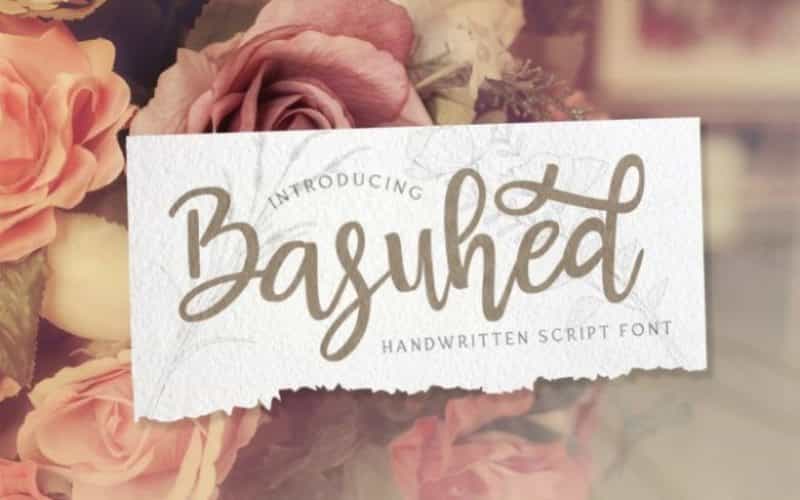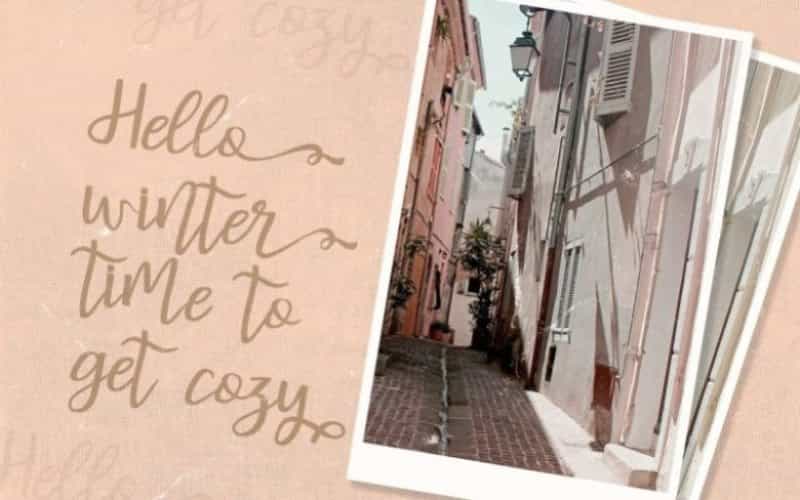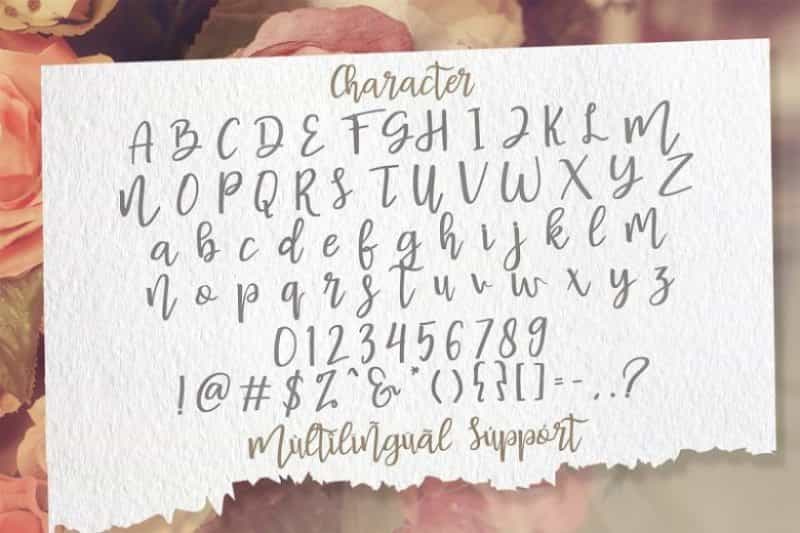
Basuhed script font that is handwritten in calligraphy style. The Basuhed font is made using digital brush strokes make this font appear authentic. This font is great for wedding invitations, business cards as well as logos, signatures and then calligraphy.